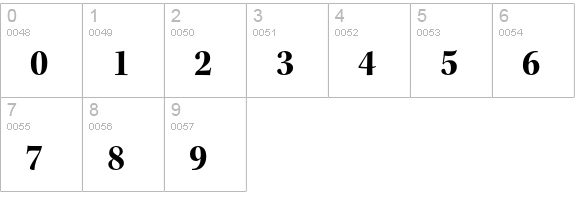
Kepler Std Bold Semicondensed Subhead is a strong, high-contrast variant in the Kepler typeface family \xE2\x80\x94 well suited to headlines, attention-grabbing titles, and strong calls-to-action.
Kepler Std Bold Semicondensed Subhead font is a bold and eye-catching typeface that is perfect for grabbing attention in subheadings and titles. Its sleek and modern design exudes confidence and professionalism, making it an excellent choice for any project that requires a strong visual impact. With its condensed structure, this font maximizes space without sacrificing legibility, allowing you to fit more content in limited areas. The bold weight adds a touch of authority and emphasis, making your subheadings stand out and command attention. What sets Kepler Std Bold Semicondensed Subhead font apart is its versatility. Whether you are designing a website, creating marketing materials, or crafting a print advertisement, this font will effortlessly adapt to your needs. Its clean lines and balanced proportions ensure clarity and readability across various sizes and media. But the best part? Kepler Std Bold Semicondensed Subhead font is available for free download at FontsMarket.com. This means that you can enjoy its professional and impactful design without spending a dime. Simply visit FontsMarket.com and effortlessly enhance your designs with this exceptional font. Don't miss the opportunity to elevate your projects with Kepler Std Bold Semicondensed Subhead font. Download it for free today and experience the power of this remarkable typeface.